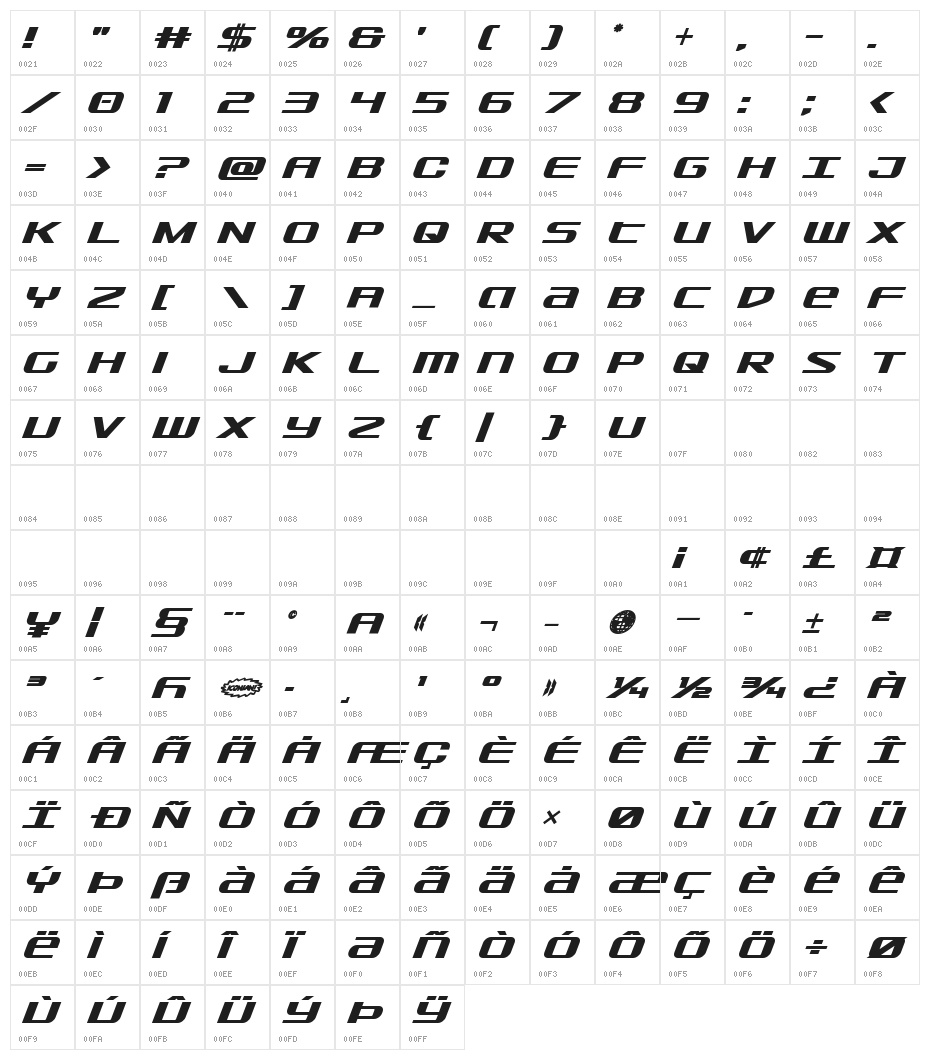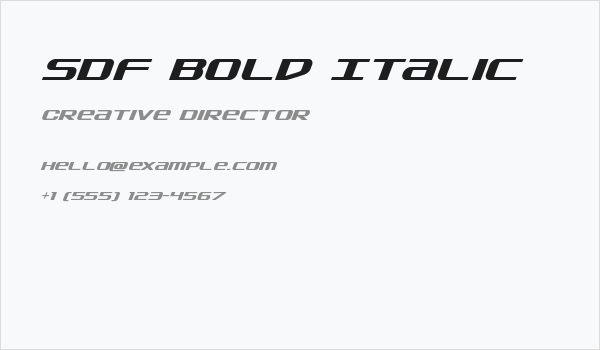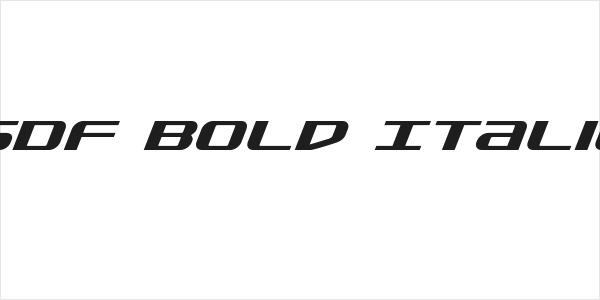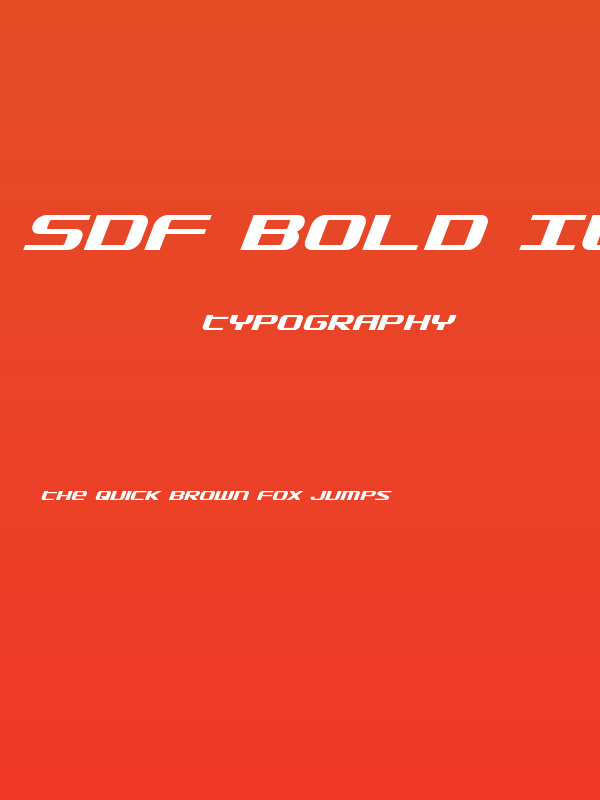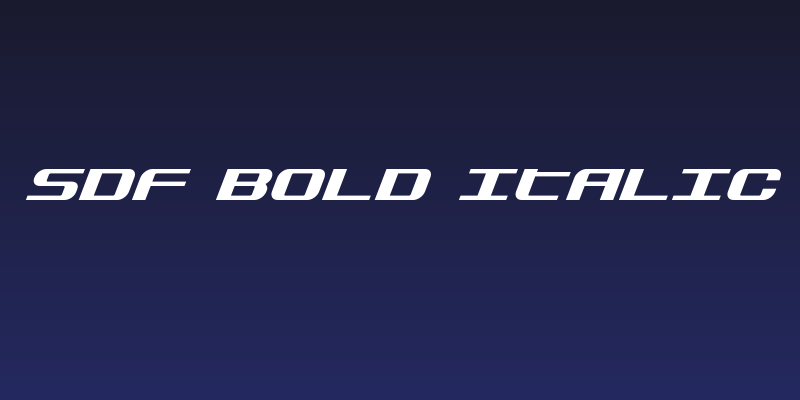
SDF Bold Italic Font
SDF Bold Italic Description
This font features a bold and italicized style with a modern and dynamic appearance. The characters are slanted, giving a sense of motion and speed, which is enhanced by the bold weight. The design includes sharp angles and clean lines, contributing to its futuristic and sleek look. The uppercase and lowercase letters maintain a consistent style, with a slight variation in size and proportion. The numerals are equally bold and italicized, ensuring uniformity across all characters. Special characters are designed to match the overall aesthetic, providing a cohesive and visually appealing set.
| Proposed Projects | Ideal for projects requiring a futuristic or tech-oriented look, such as branding for technology companies, sports teams, or automotive industries. |